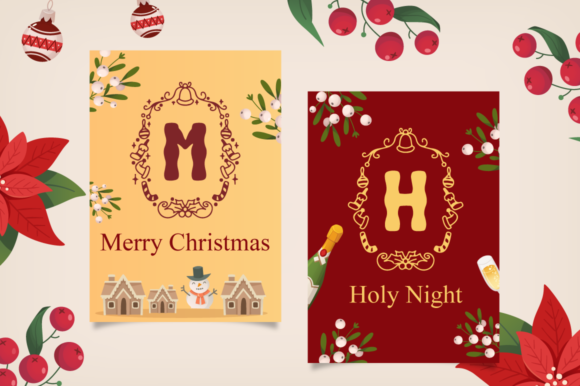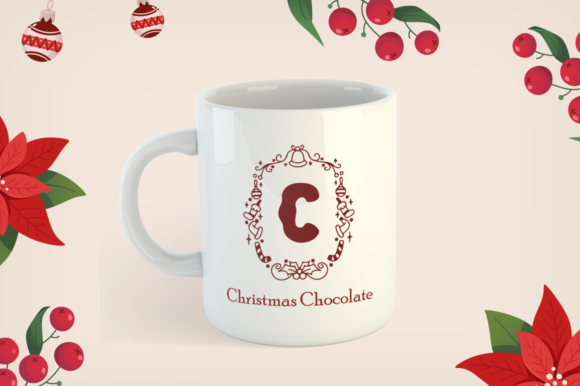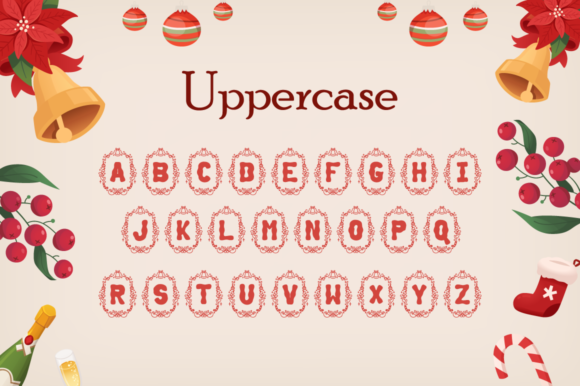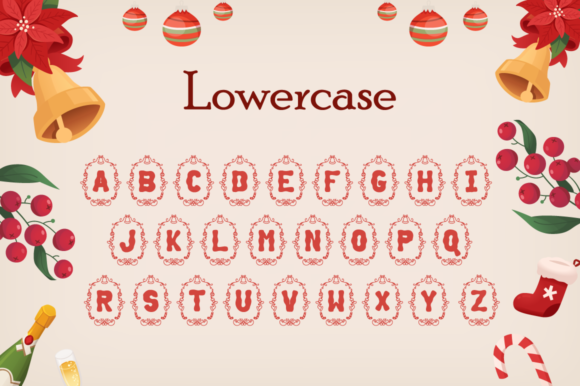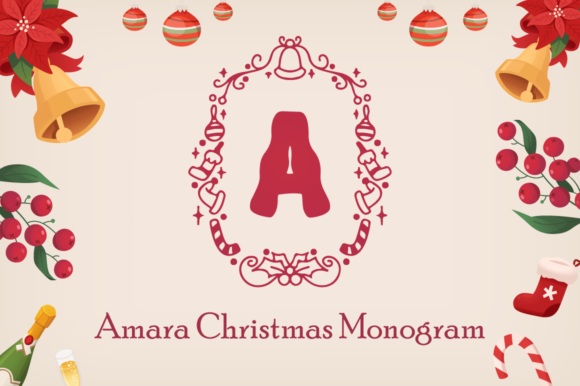
Introducing Amara Christmas Monogram Font: A Festive and Unique Decorative Font
Are you looking for a font that can add a touch of joy and festivity to your designs? Look no further than the Amara Christmas Monogram Font. This beautiful font is perfect for anyone who wants to create cartoon-related designs, children’s games, quotes, titles, brand names, book covers, posters, or any other creation that requires a unique and playful touch.
What Makes Amara Christmas Monogram Font Special?
Amara Christmas Monogram Font is a festive, warm, and unique decorative font that is sure to make your designs stand out. Its distinctive style is perfect for creating eye-catching titles, headings, and text that will grab the attention of your audience. Whether you’re a designer, crafter, or DIY enthusiast, this font is a great choice for anyone who wants to add a personal touch to their creations.
Uses of Amara Christmas Monogram Font
The Amara Christmas Monogram Font is a versatile font that can be used in a variety of ways. Here are some ideas to get you started:
- Cartoon-related designs: Add a playful touch to your cartoon characters, comics, or animations with this fun and festive font.
- Children’s games: Create engaging and interactive games for kids with this font that’s sure to delight.
- Quotes and titles: Use Amara Christmas Monogram Font to create inspiring quotes, titles, and headings that will make your content stand out.
- Brand names: Give your brand a unique and memorable identity with this distinctive font.
- Book covers: Create eye-catching book covers that will grab the attention of readers with this beautiful font.
- Posters: Design stunning posters for holidays, events, or promotions with this festive font.
Why Choose Amara Christmas Monogram Font?
There are many reasons why Amara Christmas Monogram Font is a great choice for designers and crafters. Here are a few:
- Unique style: This font has a distinctive style that’s unlike any other font out there.
- Festive and playful: Amara Christmas Monogram Font is perfect for creating designs that require a touch of joy and festivity.
- Versatile: This font can be used in a variety of ways, from cartoon-related designs to book covers and posters.
Tips for Using Amara Christmas Monogram Font
Here are some tips for using Amara Christmas Monogram Font:
- Pair it with other fonts: Experiment with pairing Amara Christmas Monogram Font with other fonts to create a unique and interesting look.
- Use it for headings: This font is perfect for headings and titles, so use it to create eye-catching text.
- Add some flair: Use Amara Christmas Monogram Font to add some flair to your designs, such as in illustrations, graphics, or icons.